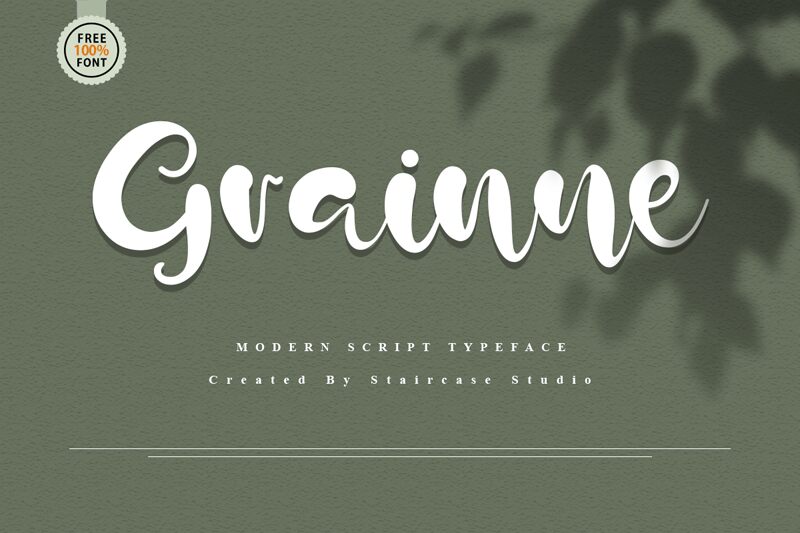
Grainne
Grainne is a bold, handwritten font created by Staircase Studio. This unique typeface is perfect for adding an eye-catching touch to any project. Its natural, handcrafted look adds personality and charm to invitations, greeting cards, posters, logos and more. With its distinct character and style, Grainne will make your work stand out from the crowd.